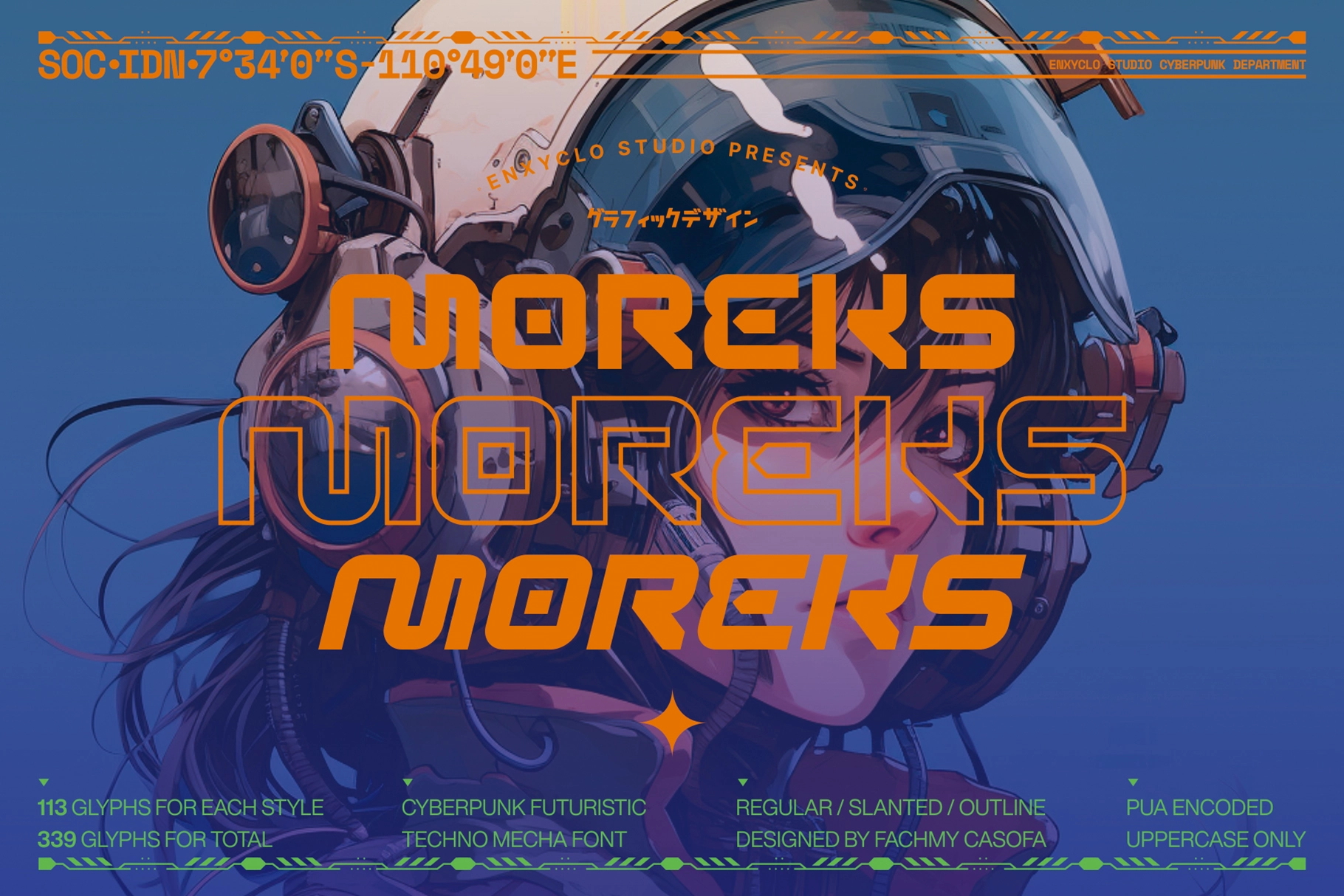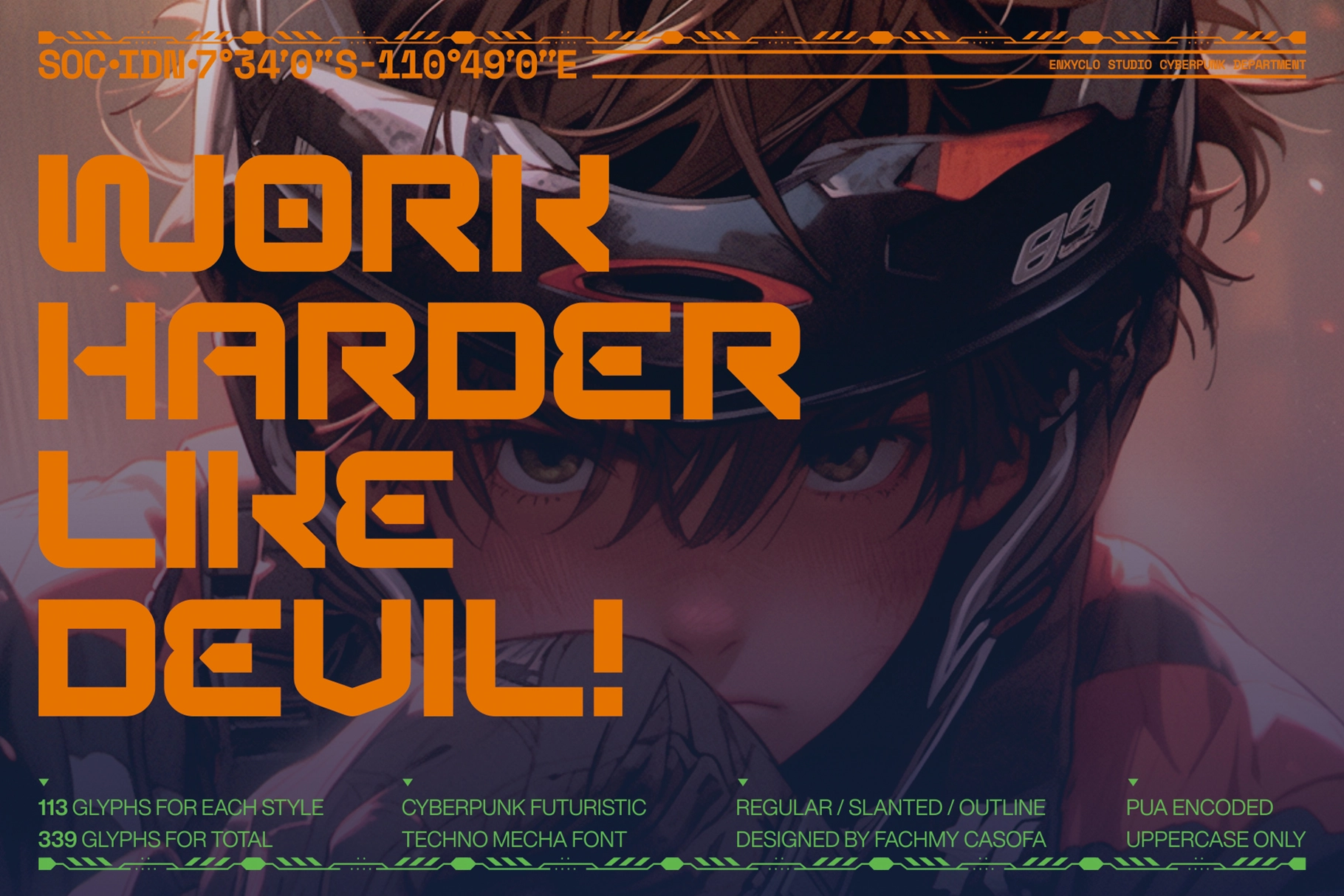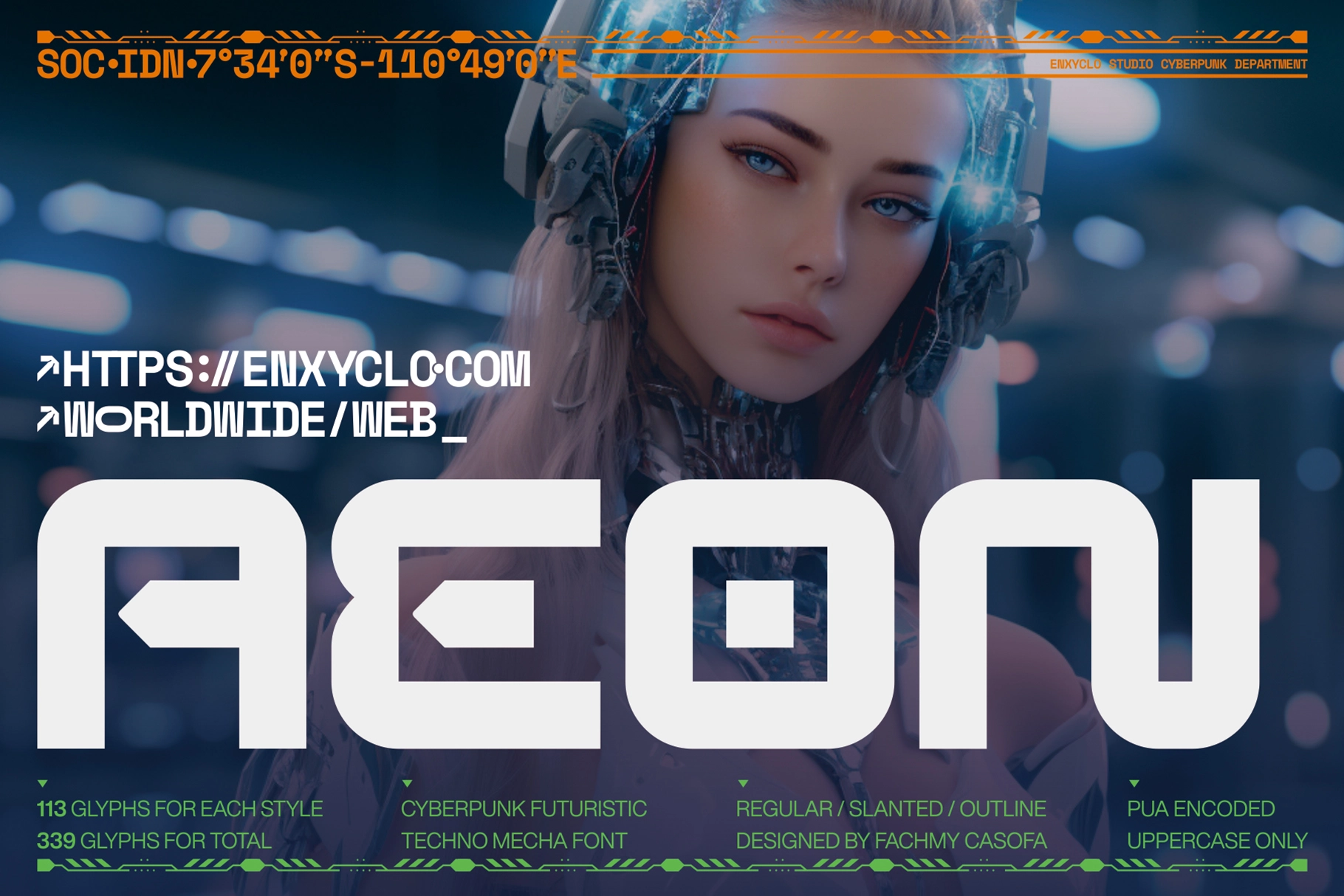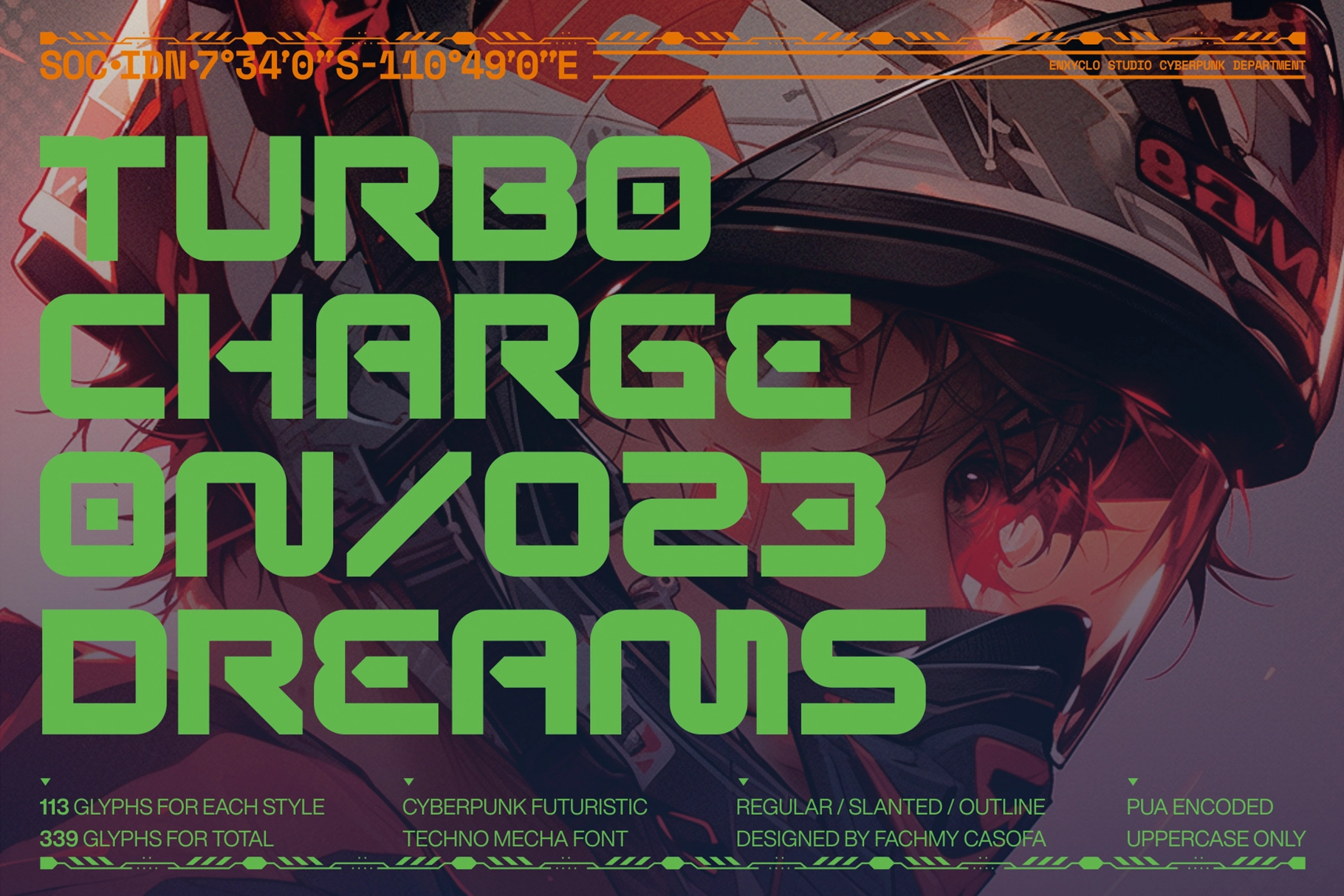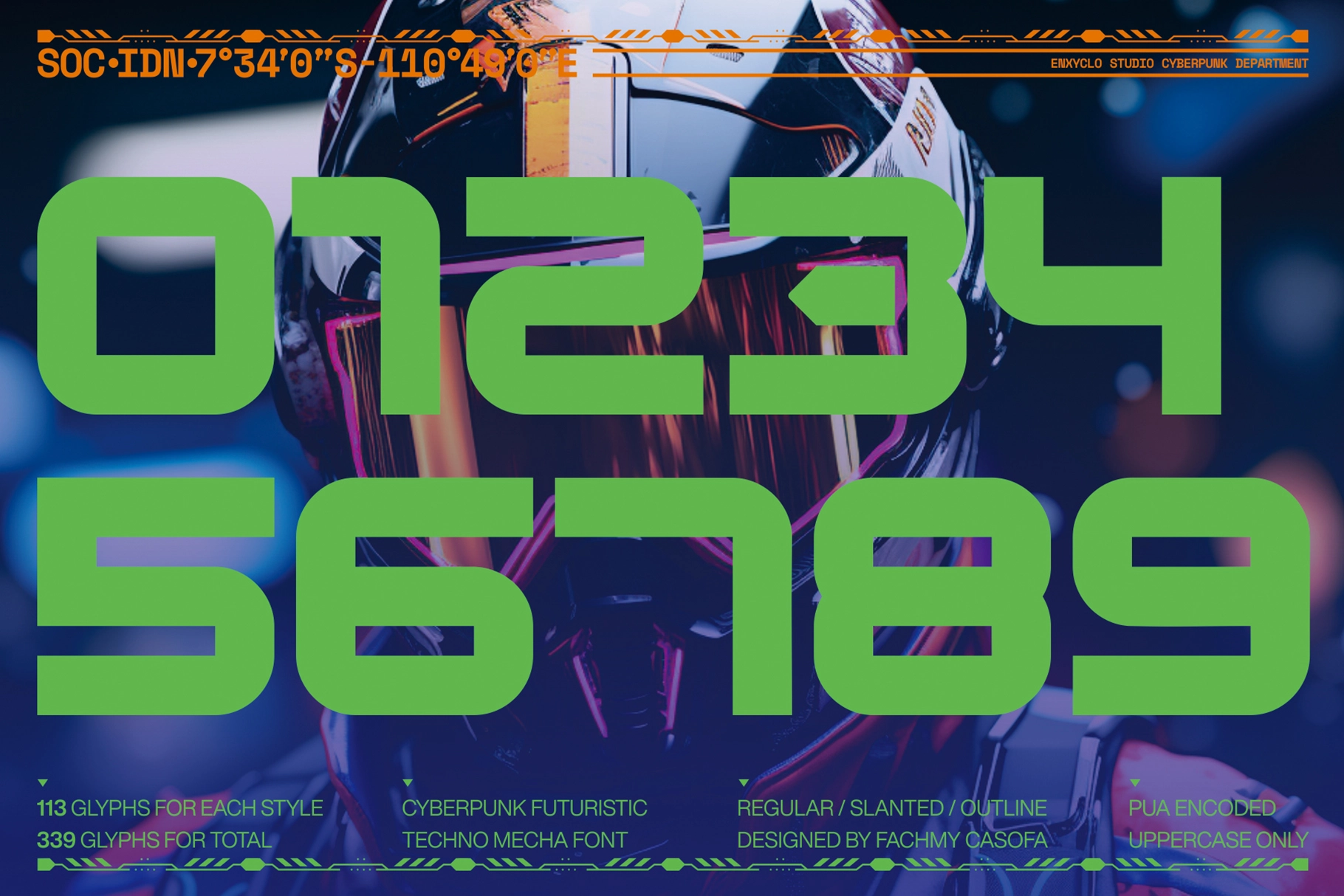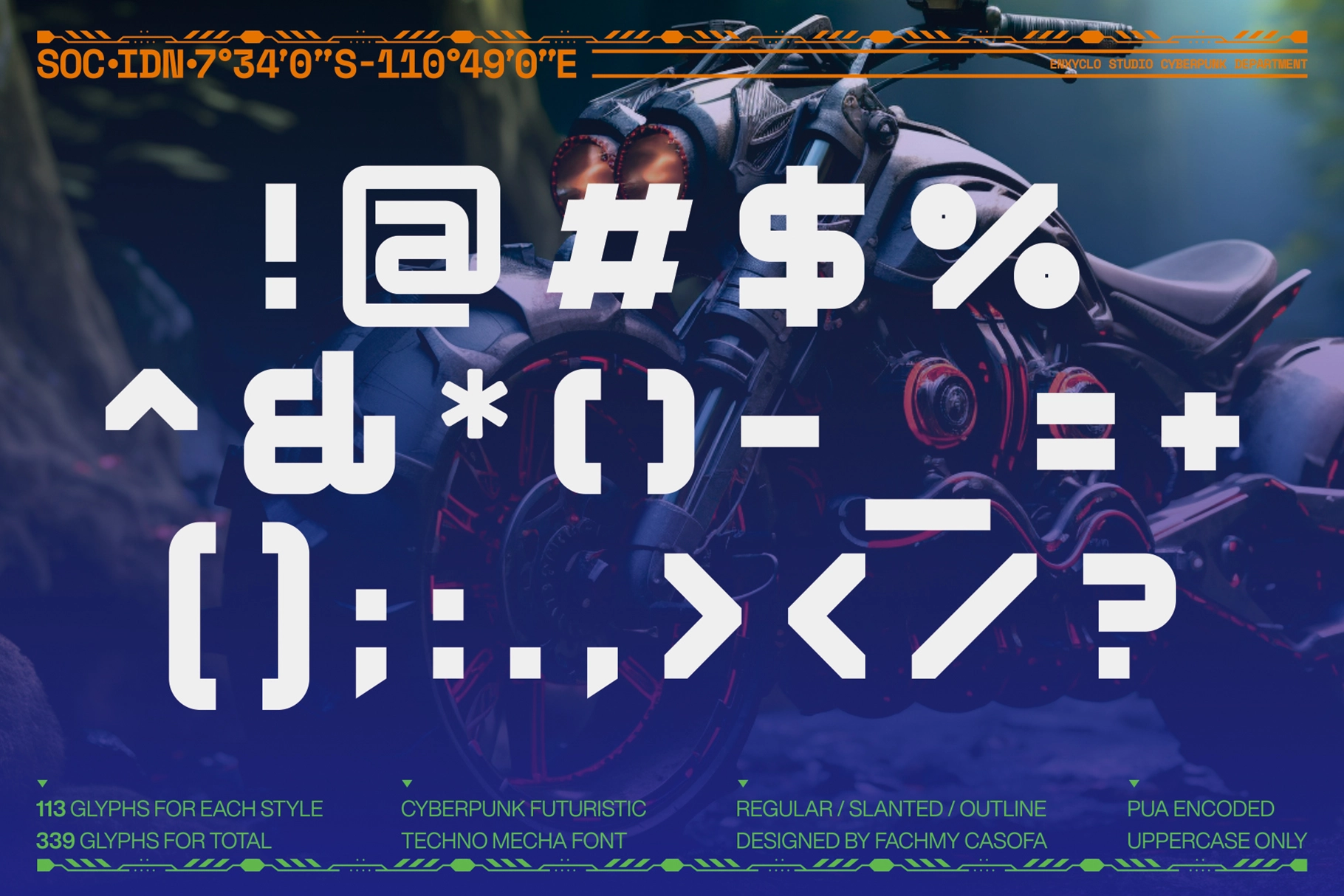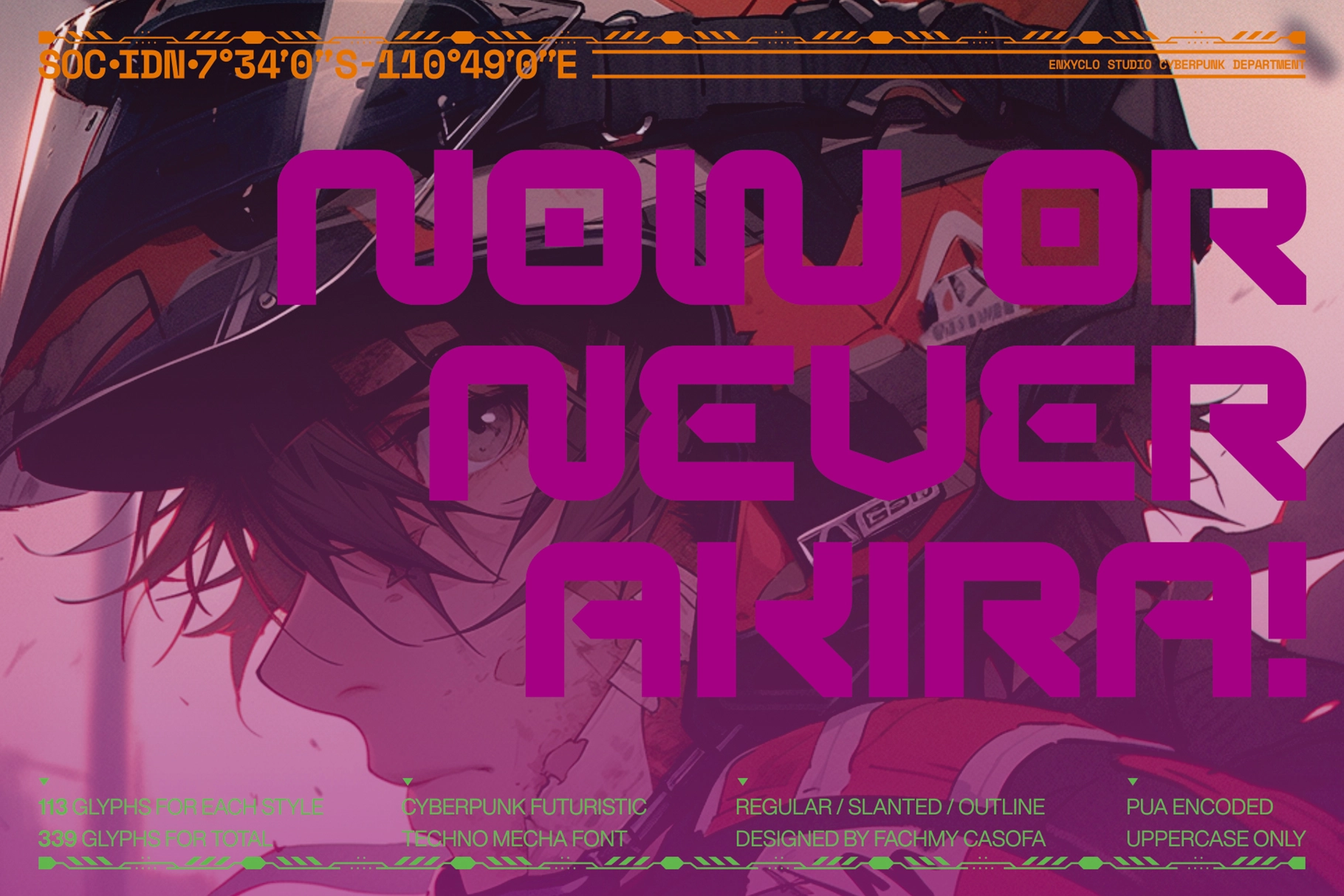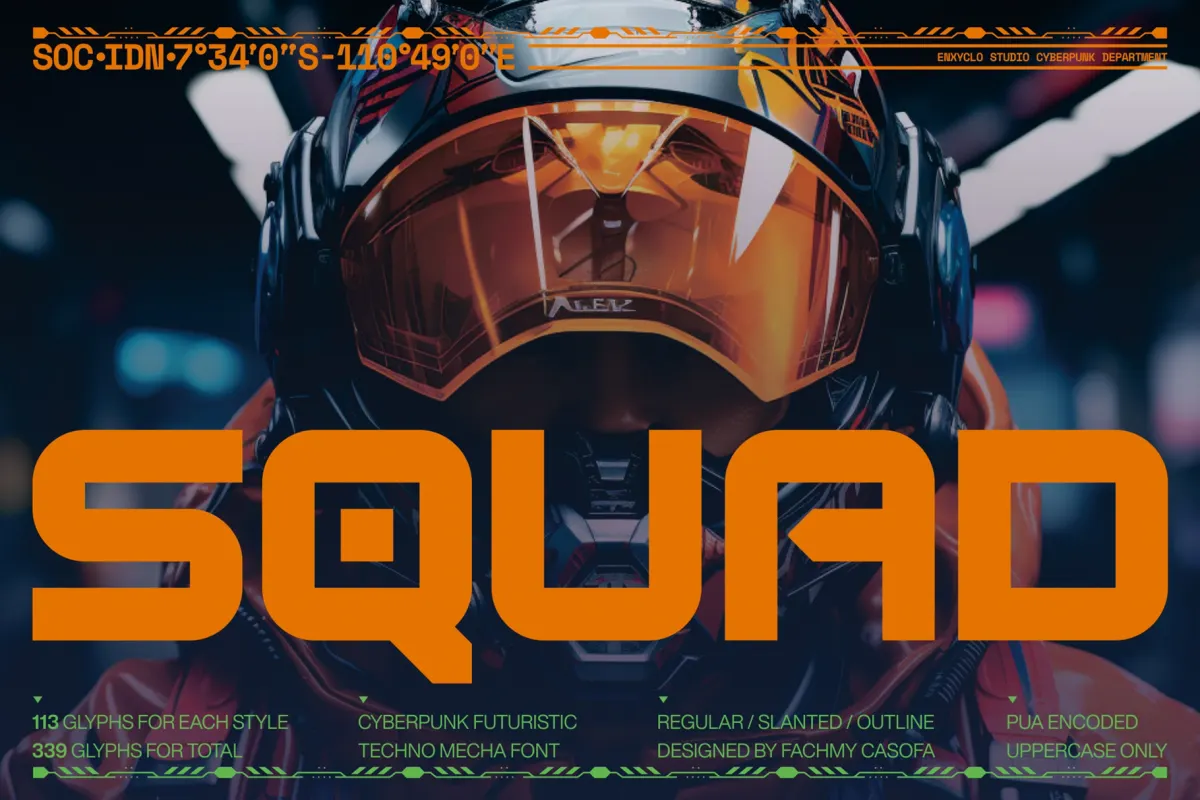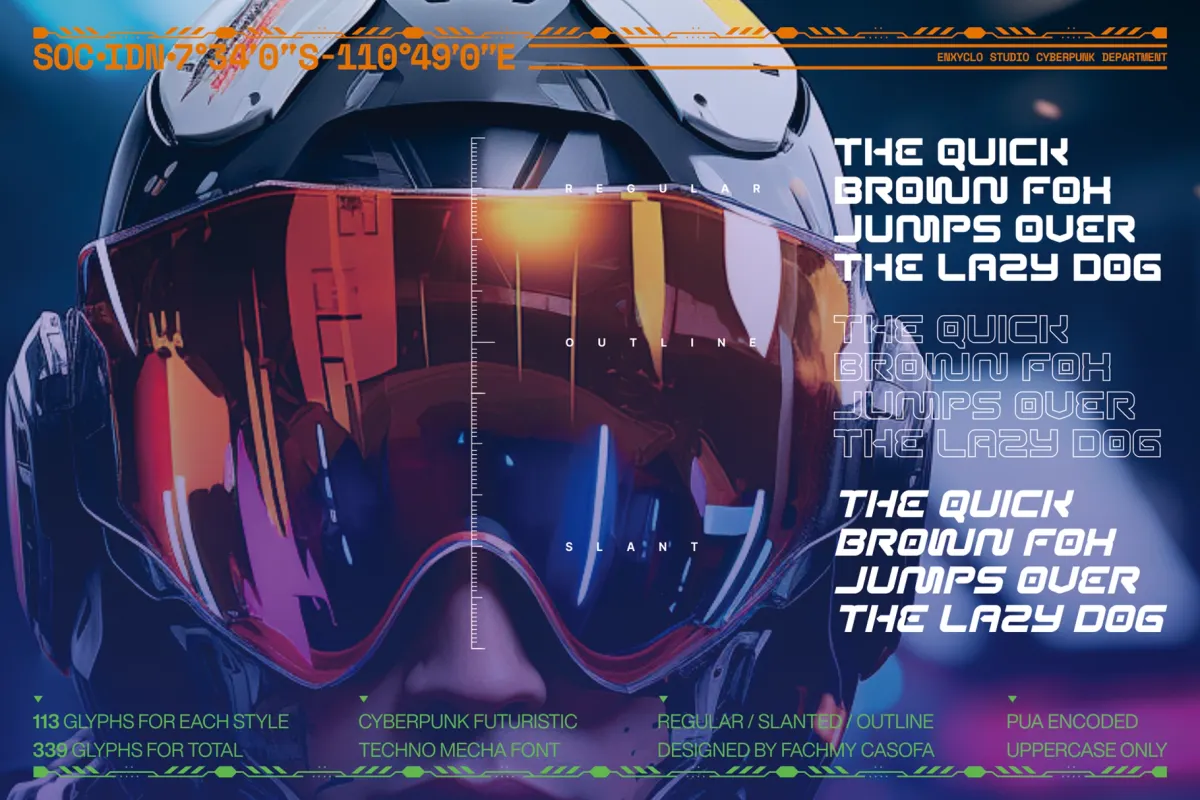
Moreks - Cyberpunk Futuristic Font
Moreks - Cyberpunk Futuristic Font is a bold and futuristic display typeface designed to bring a powerful cyberpunk aesthetic to your creative projects. With sharp geometric forms and a high-tech visual style, it delivers a strong, modern presence that instantly captures attention.
Perfect for headlines, posters, branding, websites, and streetwear visuals, Moreks adds a dynamic and futuristic edge to any design. Its versatile styles allow you to create striking compositions that feel both innovative and visually impactful.
Feature:
• 3 styles: Regular, Outline & Slant
• 113 glyphs per style (339 total)
• Uppercase, numerals, punctuation & symbols